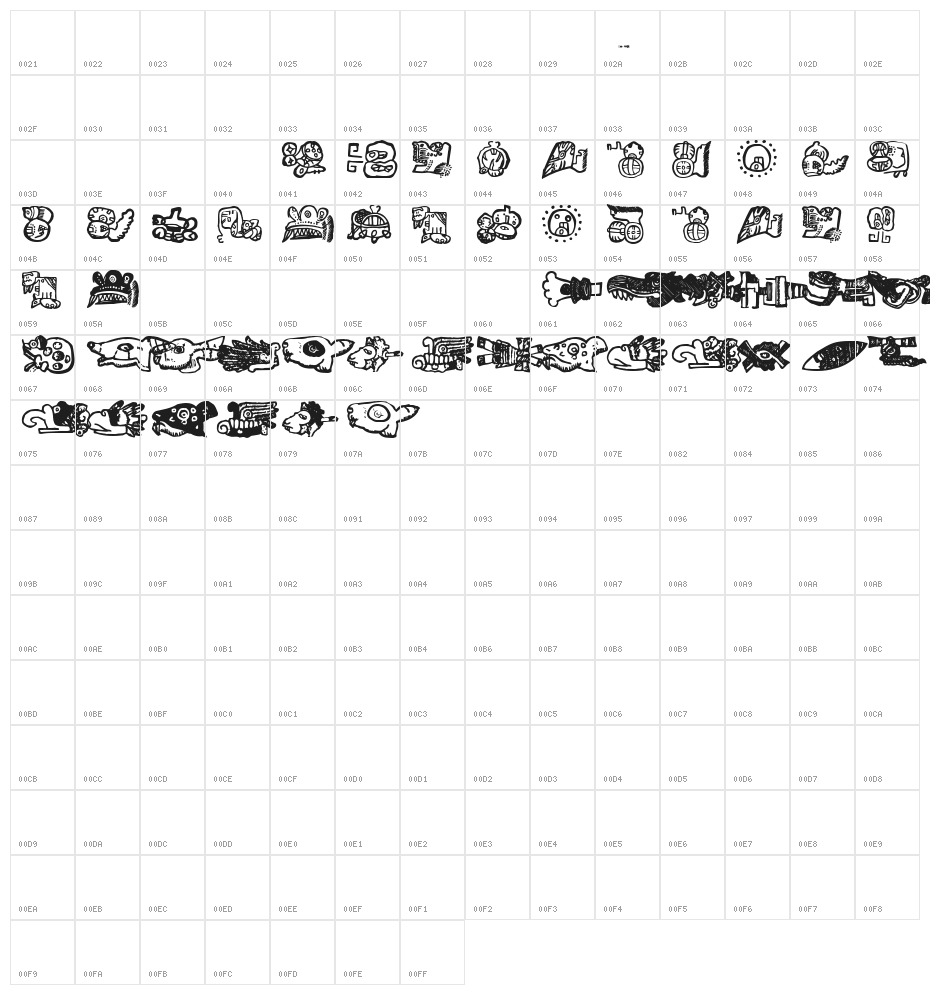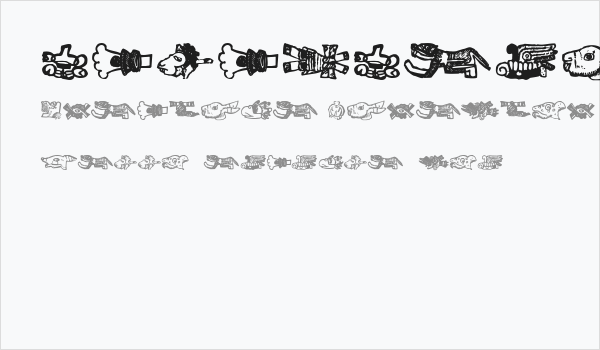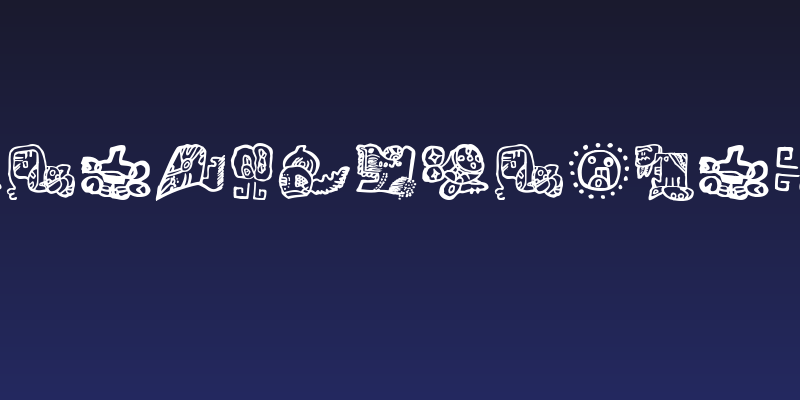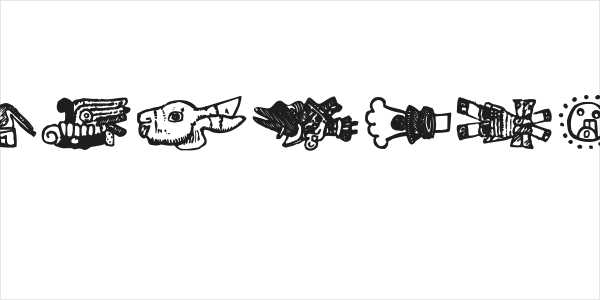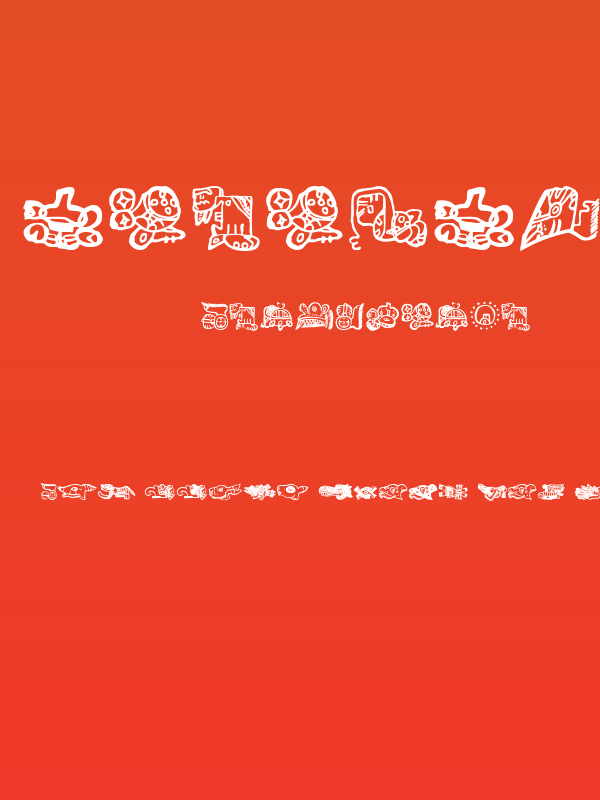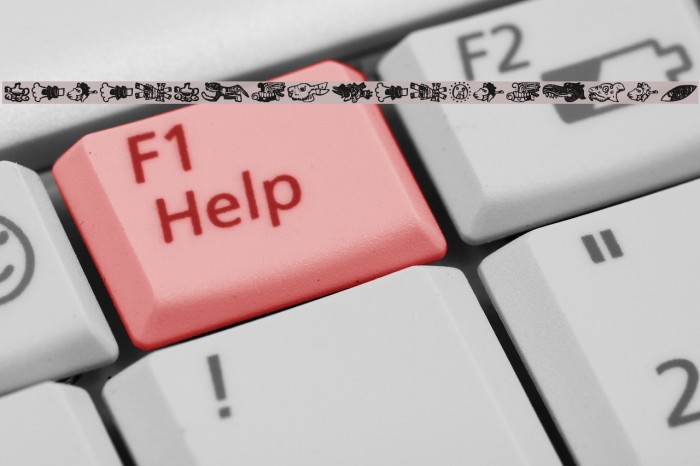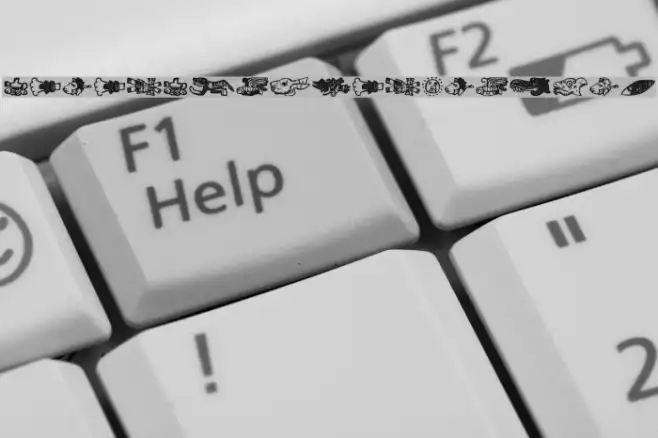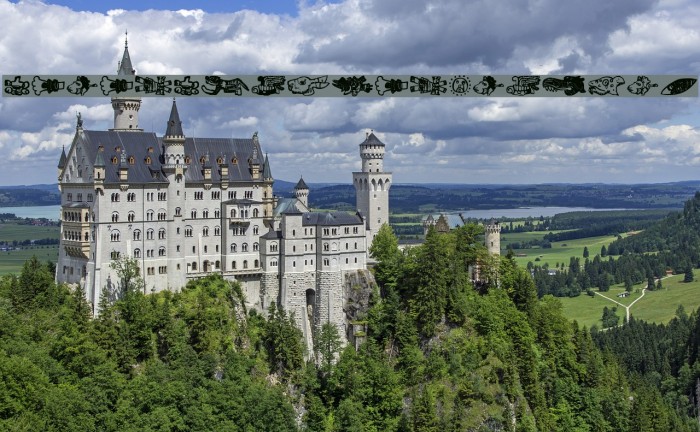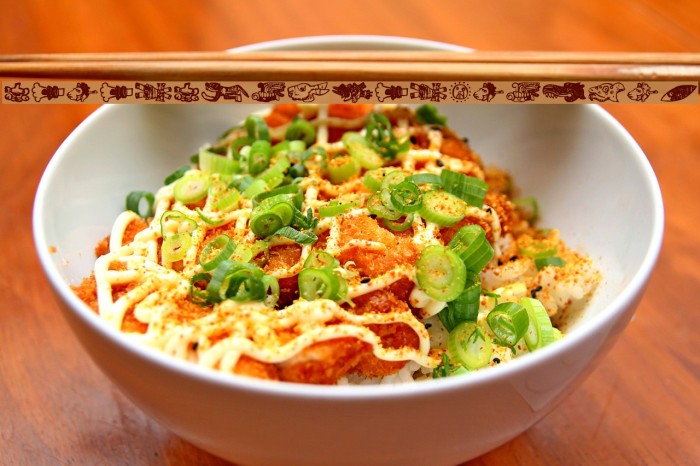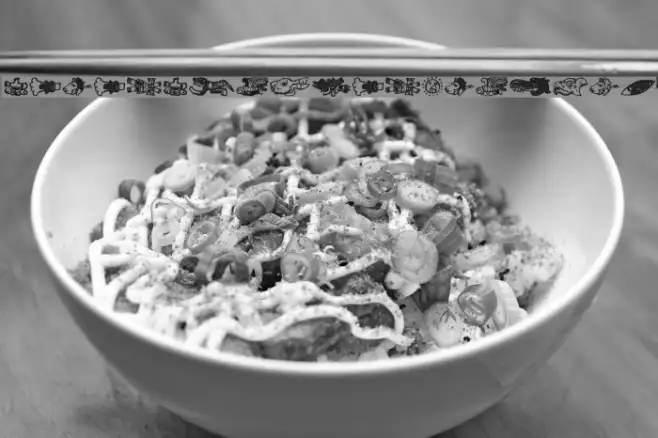
MayanMexicanSymbols Font
| Caso d'uso | Logos, Artistic displays, Cultural projects |
| Progetti proposti | Ideal for cultural projects, historical documentaries, themed events, or artistic displays that seek to incorporate ancient aesthetics. |